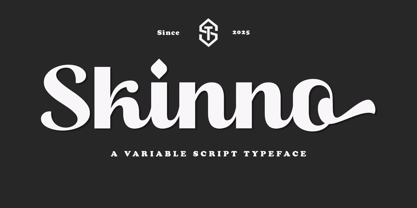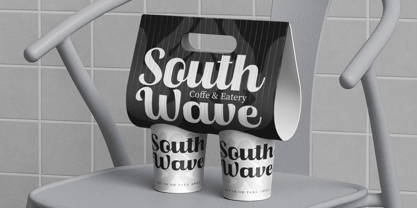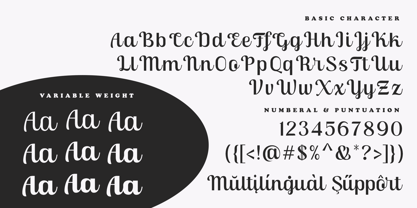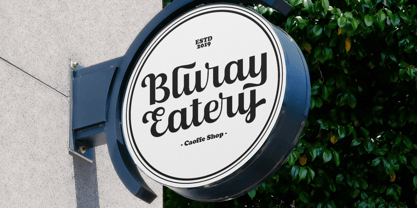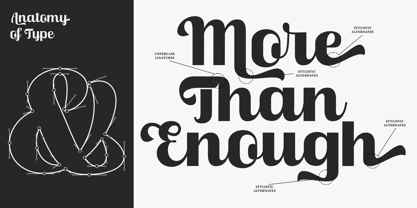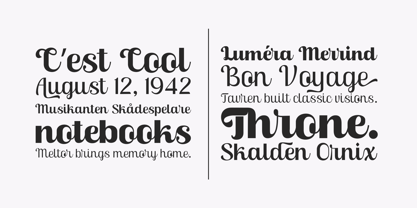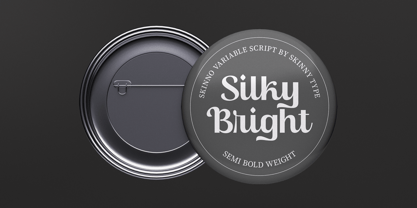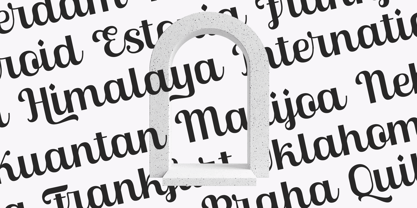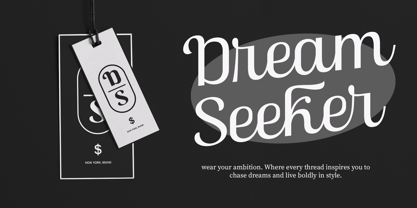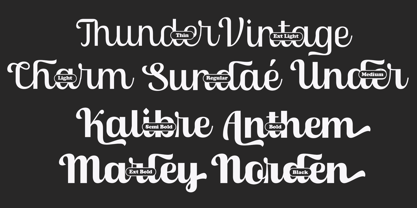
Skinno
by Skinny Type
Skinno is a strong and expressive variable script typeface designed to merge modern versatility with a touch of crafted elegance. Its flowing curves and geometric structure create a confident, stylish rhythm across every character. From smooth light weights to commanding heavy styles, Skinno delivers impact and personality for every design context. Perfect for branding, packaging, editorial titles, signage, and creative displays, this typeface adapts seamlessly to your visual needs. Features: Variable Font Format: Smoothly adjustable weight axis for custom flexibility Uppercase & Lowercase Letters Multilingual Support (Latin Extended) Alternates & Stylistic Swashes for expressive lettering Ligatures for natural script flow Numerals & Punctuation Optimized Kerning & Spacing